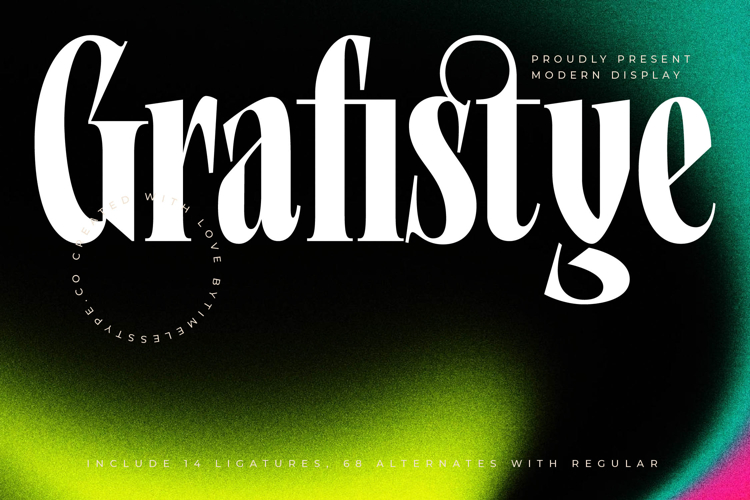
Grafistye - Modern Display
Grafistye Typeface is a modern display serif font that merges bold contemporary aesthetics with artistic elegance. Featuring 14 ligatures and 68 alternates, this typeface offers exceptional flexibility for designers to craft unique and expressive typographic compositions. Its tall proportions, sharp serifs, and dramatic curves create a striking presence that feels both fashionable and authoritative. Grafistye is designed to make a statement, perfect for projects where typography is not just functional, but a central visual element that draws attention and conveys sophistication.